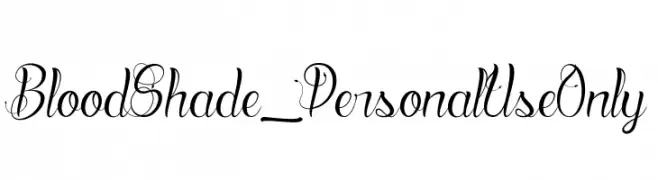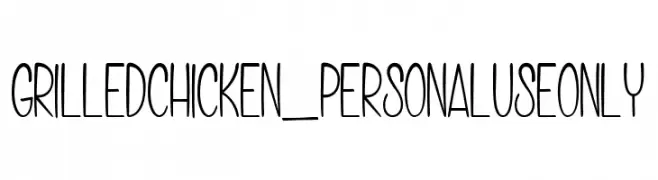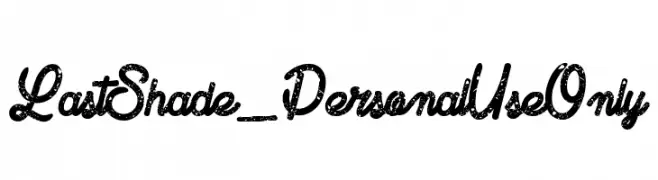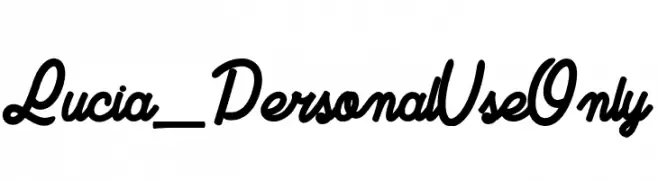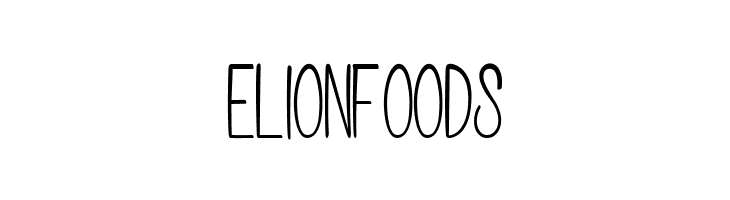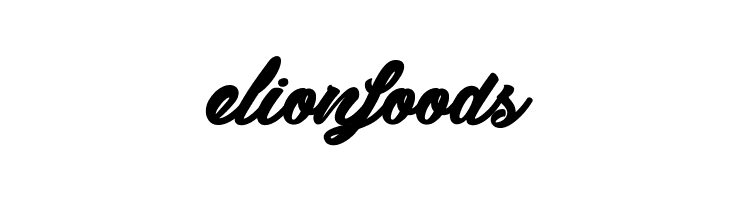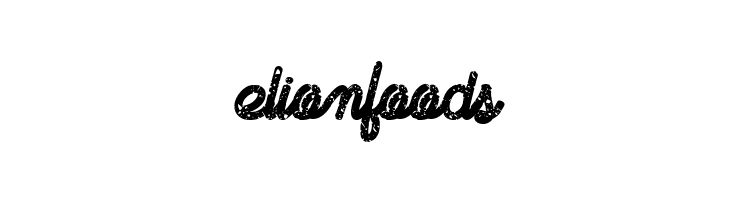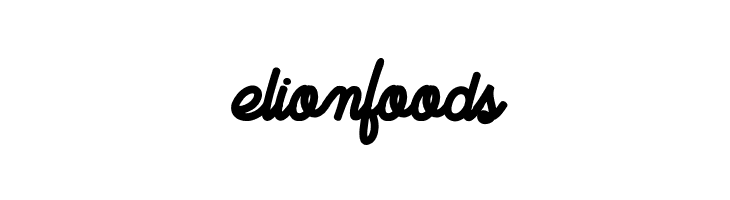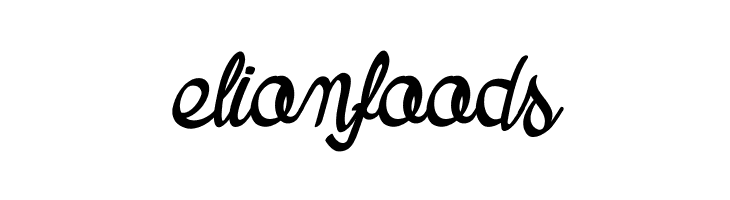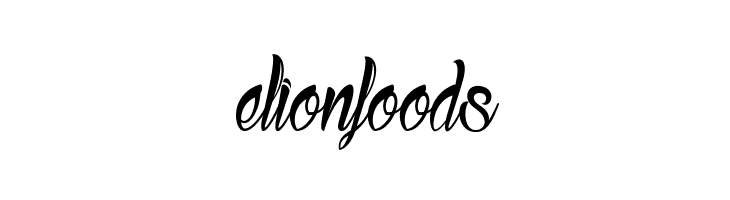
A bold, playful font with a hand-drawn, energetic style.
An elegant script font with decorative swashes and flowing cursive style.
A playful, hand-drawn font with tall, narrow letters and a whimsical style.
A bold, dynamic script font with interconnected characters and a strong presence.
A bold, textured script font with a vintage, handcrafted look.
A playful, flowing script font with a handwritten appearance.
A dynamic and elegant script font with flowing, cursive letterforms.
An elegant script font with decorative swirls and flourishes.
A bold, dynamic script font with flowing strokes and elegant curves.
A bold, dynamic script font with a connected, handwritten style.